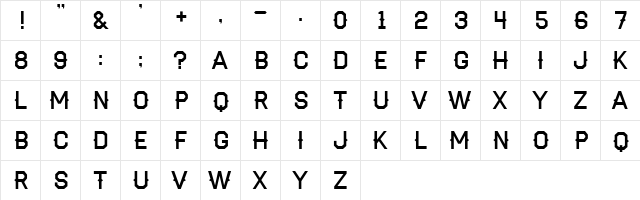
Haymaker Regular
| Foundry | Trevor Baum |
| Designer | Trevor Baum |
Design Context for Haymaker Typeface
Haymaker is a composed and adaptable typeface that performs quietly and consistently across a wide range of design contexts.